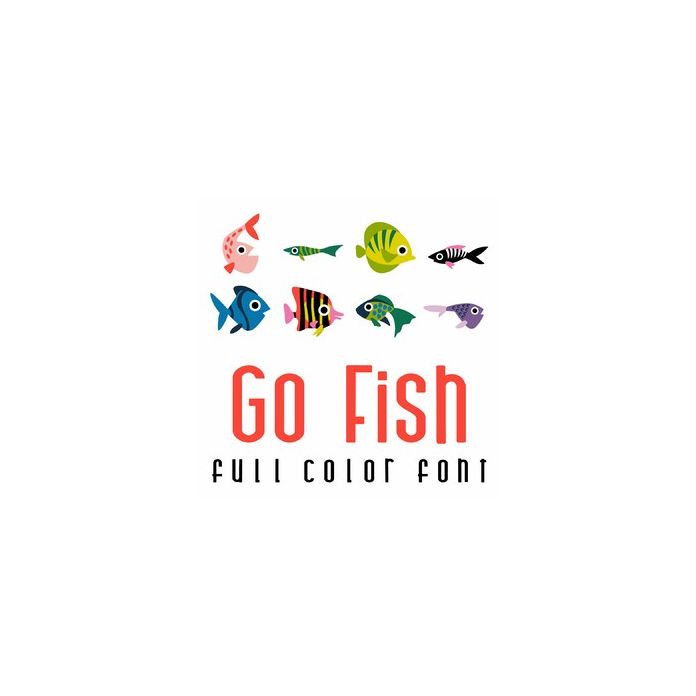
This adorable full color doodlebat font features beautiful fish. Perfect for cards, crafts, gifts, decor, scrap book pages, planner stickers and more!